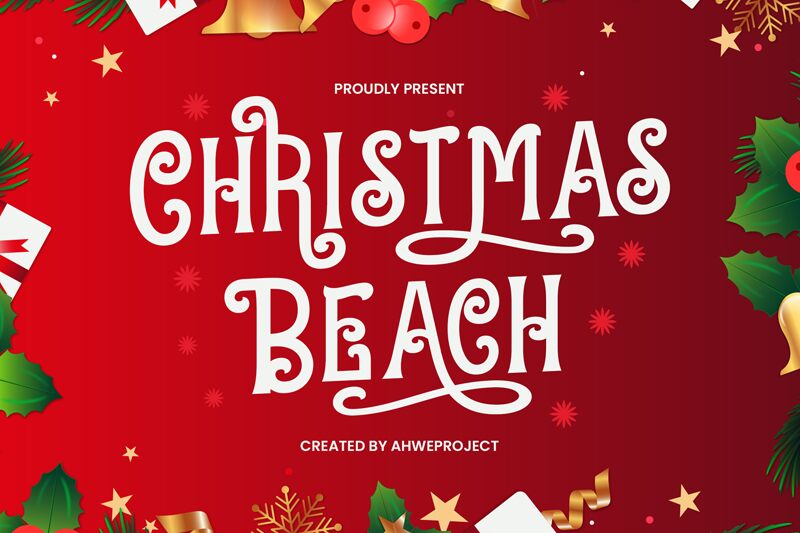
Christmas Beach font by Ahwe Project is a free decorative font with a graceful twist to fulfill your holiday season design needs. This typeface is whimsical, playful, bold, and high contrast which gives it the magic of Christmas in its letters. With retro influence, artistic flair, and ornate swirls in some characters like (s), (v), (w), etc., this font will make all your viewers feel the festive mood instantly.
Applications of this unique font can include greeting cards for the holidays, posters for Christmas sales or similar events, video titles or covers relating to Christmas or beach destinations, and so on. You name it whether personal or business use; e-books/books covers, t-shirt branding elements corporate presentations...
Christmas Beach